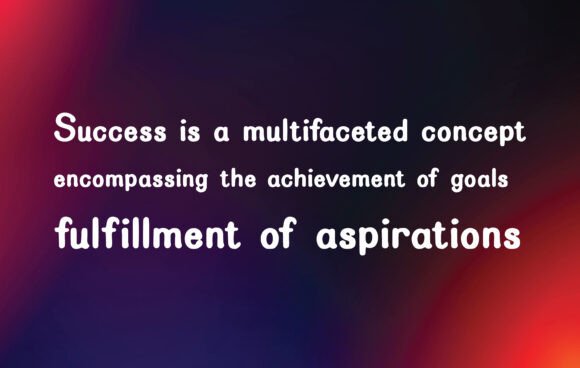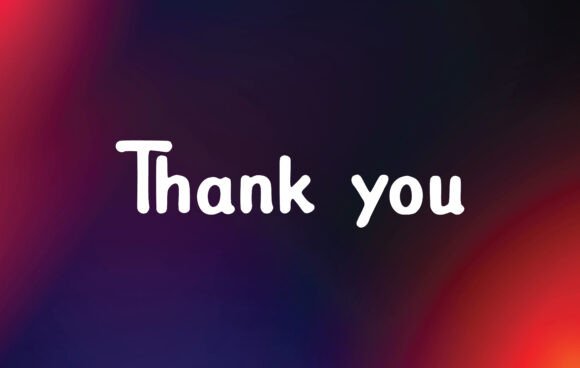
Introduction to Nixon Font
Nixon is a lovely and beautiful handwritten font.
Key Features of Nixon Font
Why Choose Nixon Font?
Nixon Font offers exceptional quality and versatility, making it a valuable addition to your design toolkit. Whether you’re creating for personal projects or commercial use, Nixon Font delivers professional results.